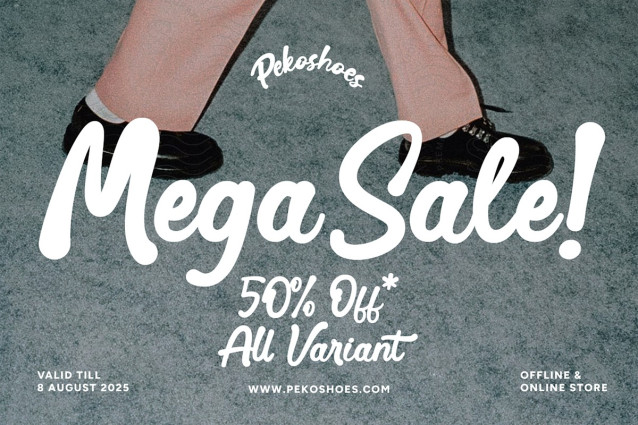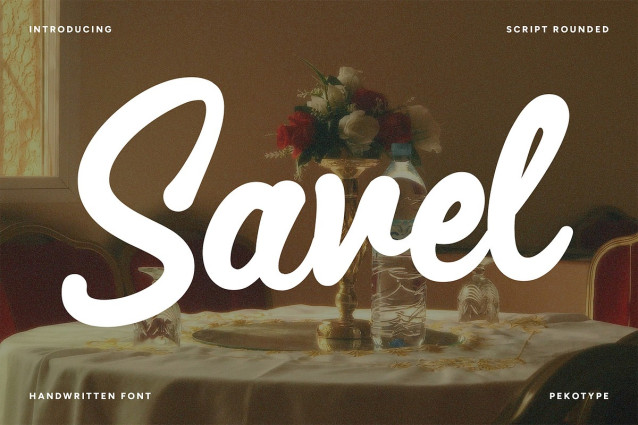
Savel Script Font
Savel Script Font a bold, rounded script font that brings charm, confidence, and versatility to your designs! Handcrafted with a smooth, friendly flow, SAVEL combines the warmth of handwritten curves with the impact of bold lettering — making it the perfect choice for branding, logo design, packaging, posters, promotional materials, print media, and social media content.
Whether you’re crafting a product label, launching a creative brand, or designing eye-catching marketing assets, SAVEL adds a personal and professional touch to any project. Its rounded, handwritten style makes it easy to read while maintaining a unique, playful personality.